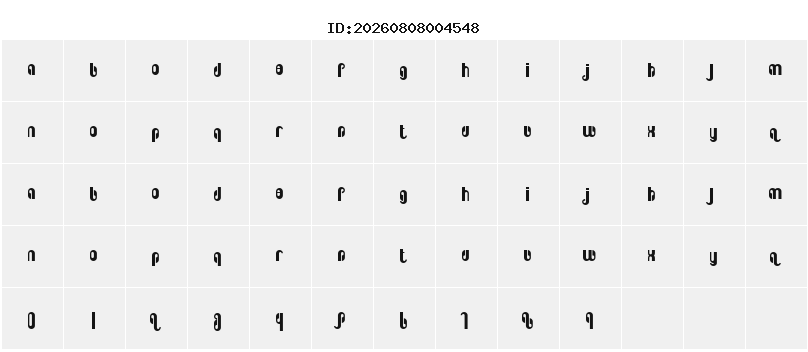
Pseudolux Preview
• Font Name: Pseudolux
• Full Font Name: Pseudolux
• PostScript Name: Pseudolux
About Pseudolux.ttf
Pseudolux.ttf is a modern, elegant sans-serif font designed for ultimate readability and visual harmony. Perfect for branding, headlines, web design, and print materials.